Gradient
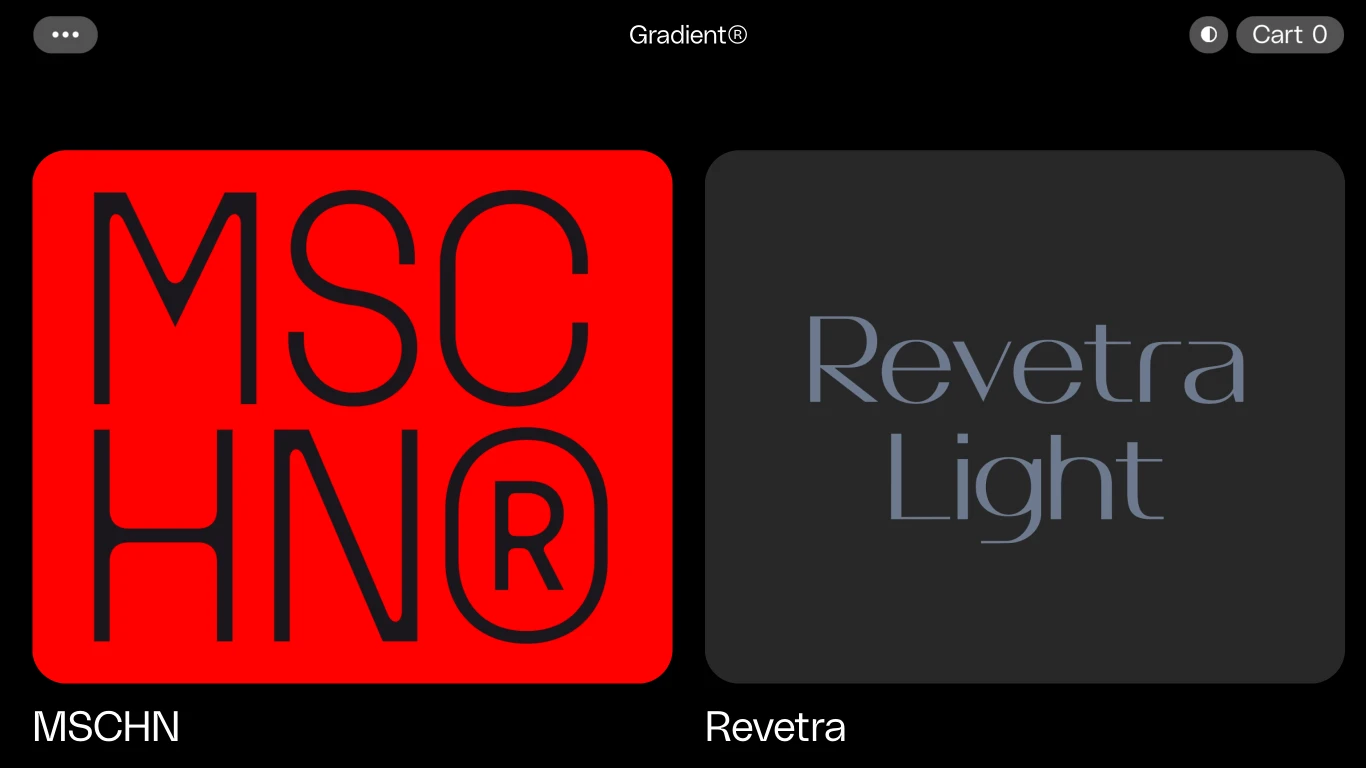
Norway
Gradient is an independent type foundry and design studio based in Bergen, Norway, founded by Milos Mitrovic.The studio focuses on producing high-quality typefaces and type systems, using experimental approaches to deconstruct traditional typography and reimagine it through contemporary designs—resulting in standout typefaces like MSCHN, NeuSans, and PolySans. The studio has worked with major clients such as Coca-Cola, NIO, Dailymotion, The Verge, and Wieden+Kennedy.